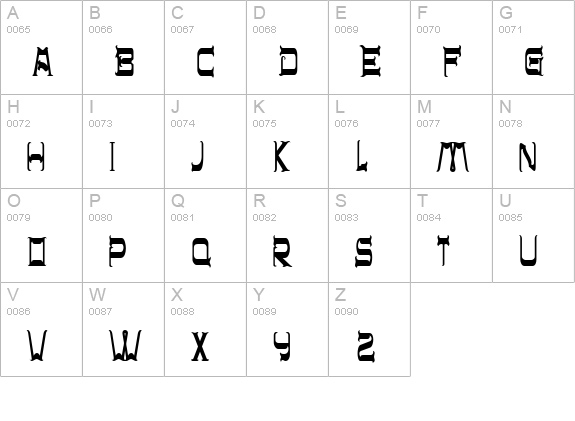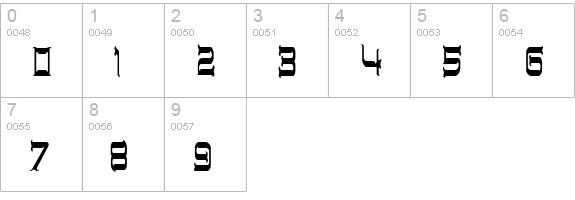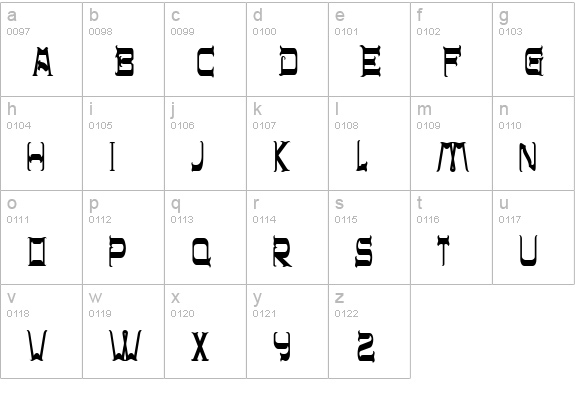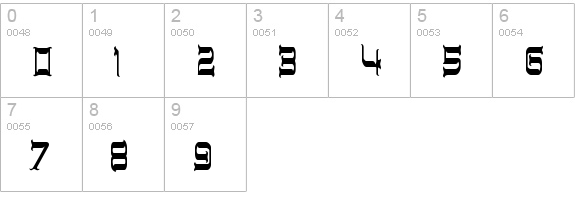
CHR$(32) Font Details
Introducing CHR$(32) font, a stylish and versatile typeface that exudes elegance and sophistication. This font offers a perfect balance between modernity and classic design, making it suitable for a wide range of projects. With its clean lines and sleek appearance, CHR$(32) font is sure to make your text stand out and leave a lasting impression. What's even better is that CHR$(32) font is available for free download at FontsMarket.com. Don't miss out on the opportunity to add this beautiful font to your collection and elevate your design projects to the next level. Download CHR$(32) font today and bring a touch of elegance to your creations.